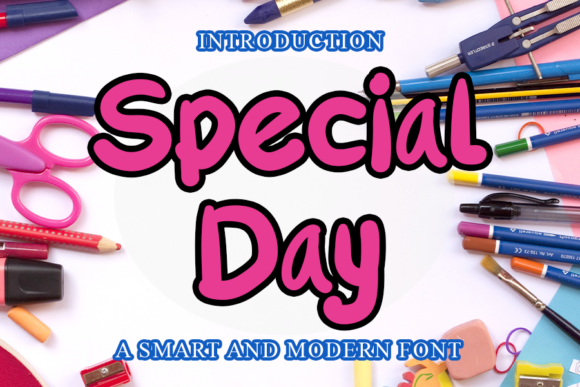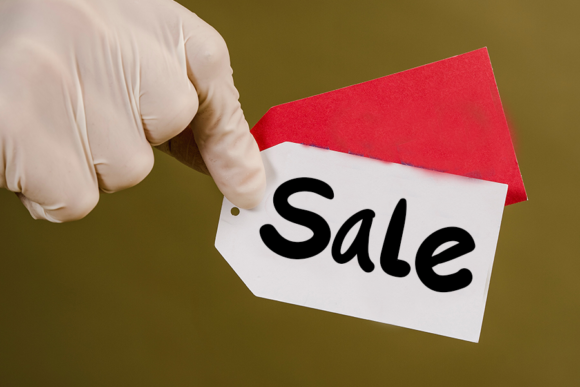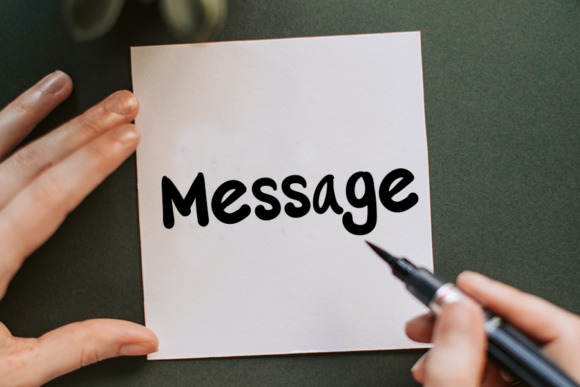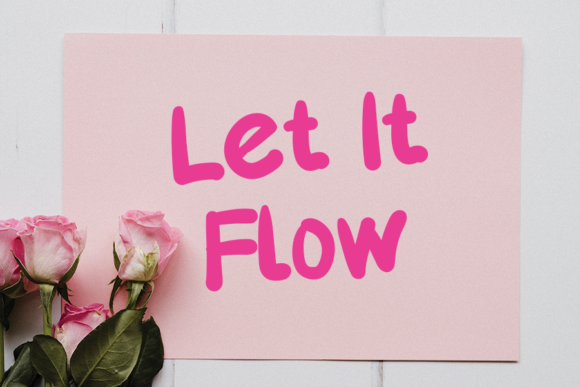
Special Day
About Special Day Font
Special Day is a fun and bold handwritten font where each letter is a different thickness and the baseline is playful. It is a font that is perfect to use for your crafts all year round!